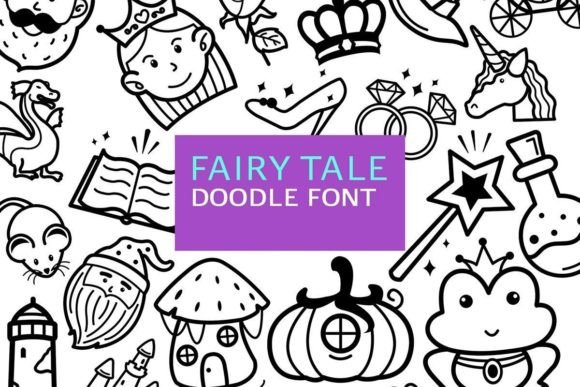
Fairy Tale Doodle Font: A Fun and Lovely Addition to Your Projects
In the world of typography, fonts play a crucial role in conveying the tone and personality of a project. Whether you’re working on a graphic design, a website, or a marketing campaign, the right font can make all the difference. If you’re looking for a font that adds a touch of whimsy and playfulness to your work, look no further than the Fairy Tale Doodle Font. In this article, we’ll explore the features and benefits of this delightful font and why it’s a great addition to your projects.
What is Fairy Tale Doodle Font?
Fairy Tale Doodle Font is a dingbats font that is designed to bring a sense of fun and fantasy to your projects. The font features a collection of doodle-style illustrations, including stars, hearts, flowers, and other whimsical designs. Each character in the font is carefully crafted to add a touch of playfulness and imagination to your work.
Key Features of Fairy Tale Doodle Font
- Unique and Whimsical Designs: The Fairy Tale Doodle Font features a range of unique and imaginative designs that are perfect for adding a touch of fantasy to your projects.
- High-Quality Illustrations: Each character in the font is carefully crafted to ensure high-quality illustrations that will look great in any project.
- Versatile: The Fairy Tale Doodle Font can be used in a variety of projects, from graphic design and websites to marketing campaigns and more.
Why Use Fairy Tale Doodle Font?
So why should you use the Fairy Tale Doodle Font in your projects? Here are just a few reasons:
- Adds a Touch of Whimsy: The Fairy Tale Doodle Font adds a touch of playfulness and imagination to your projects, making them stand out from the crowd.
- Perfect for Children’s Projects: The font’s whimsical designs make it perfect for projects aimed at children, such as children’s books, educational materials, and more.
- Great for Branding and Marketing: The Fairy Tale Doodle Font can be used to create fun and engaging branding and marketing materials, such as logos, brochures, and social media graphics.
- Easy to Read: Despite its playful designs, the Fairy Tale Doodle Font is easy to read, making it perfect for use in body text and other applications where readability is important.
Tips for Using Fairy Tale Doodle Font
Here are a few tips for using the Fairy Tale Doodle Font:
- Use it Sparingly: While the Fairy Tale Doodle Font is fun and playful, it can be overwhelming if used too much. Use it sparingly to add a touch of whimsy to your project.
- Pair it with Other Fonts: The Fairy Tale Doodle Font pairs well with other fonts, such as sans-serif fonts and script fonts. Experiment with different font combinations to find the one that works best for your project.
- Experiment with Colors: The Fairy Tale Doodle Font looks great in a variety of colors. Experiment with different colors to find the one that works best for your project.
In conclusion, the Fairy Tale Doodle Font is a fun and lovely addition to any project. Its unique and whimsical designs make it perfect for adding a touch of fantasy and imagination to your work. Whether you’re working on a graphic design, a website, or a marketing campaign, the Fairy Tale Doodle Font is a great choice. So why not give it a try and see the results for yourself?
Faq
- What is Fairy Tale Doodle Font?
- Fairy Tale Doodle Font is a dingbats font that features a collection of doodle-style illustrations, including stars, hearts, flowers, and other whimsical designs.